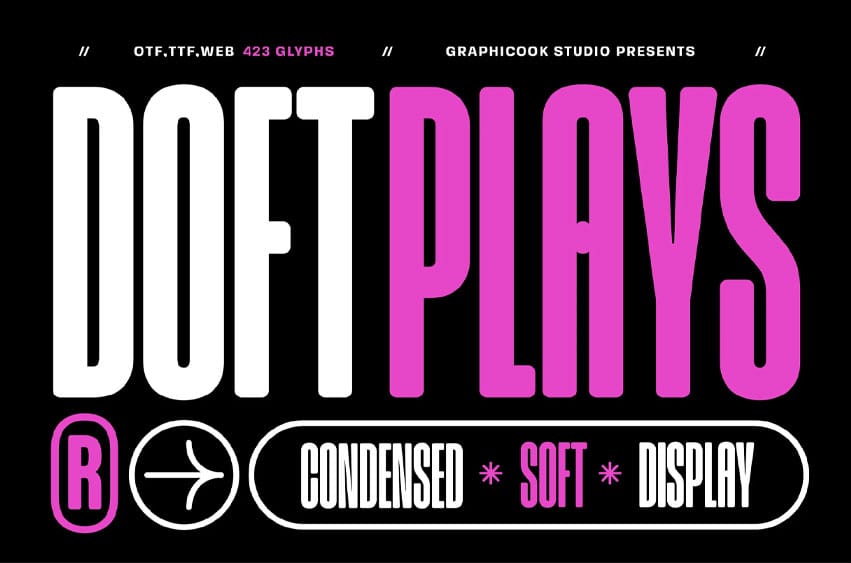
Doftplays Font is a condensed font with rounded corners that delivers a strong visual impact and captures attention. It’s ideal for designs that want to appear modern, bold, and playful.
Doftplays is perfect for headlines, logotypes, magazines, packaging, quotes, movies, games, cover albums, book covers, and flyers, it’s a perfect solution for creating eye-catching designs that stand out in any context.